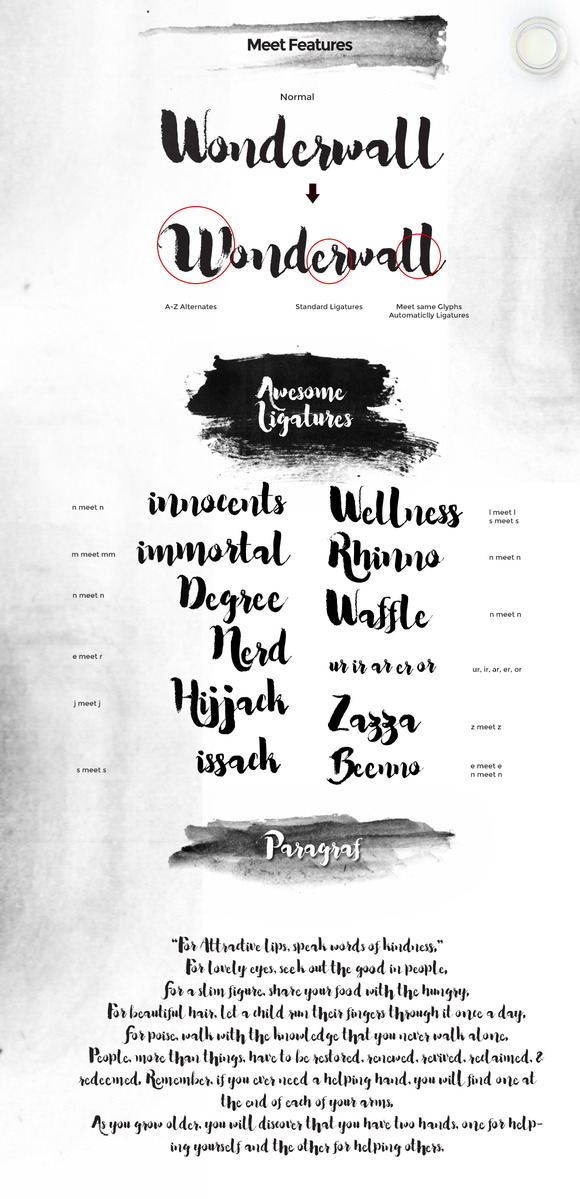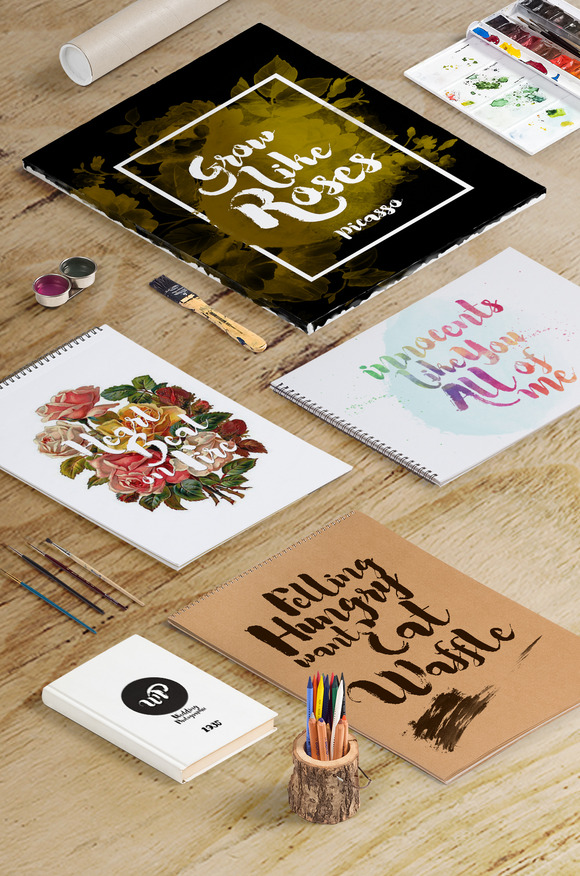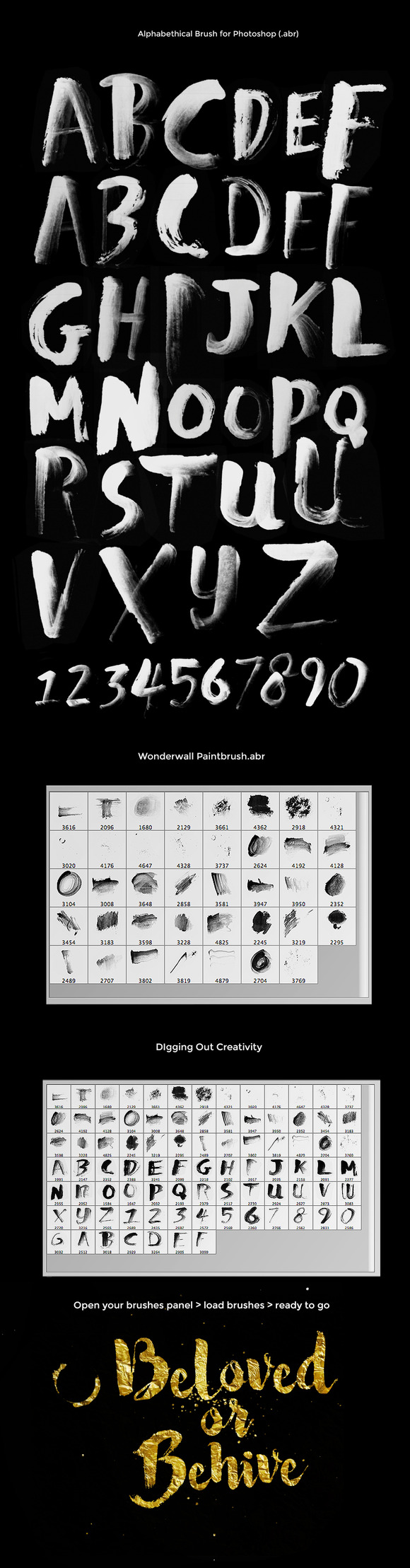
Wonderwall Font & Alphabetical Brush
Wonderwall font comes from manual Typographic and transparent watercolor. trying to make a case characters irregular but have a good harmony.
Create something different with ligatures and alternate. Suitable for making crafts manual arts. greeting in love with the natural impression, wedding card
Grab Bonus original alphabetical handpainted, with transparant watercolor you could make poster, greeting card, or anything related with handcraft product
Features
• Uppercase & Lowercase
• Dancing ligature (aa, bb, cc, dd ,ee ff, gg, hh, ii , jj, kk, ll, mm, nn, oo, pp, qq, rr, ss, tt, uu, vv, ww, xx, yy, zz, ar, ir, ur, er, or, th, fr) Type the sample of ligatures on the test page to feel results !